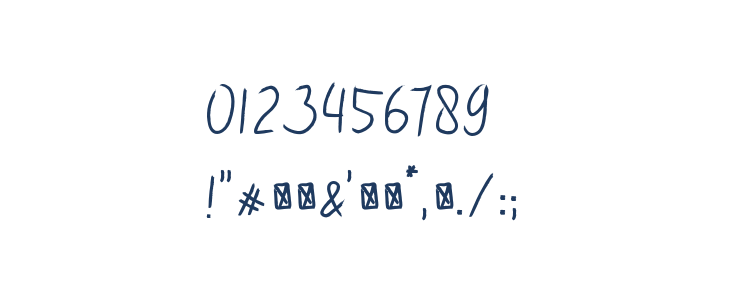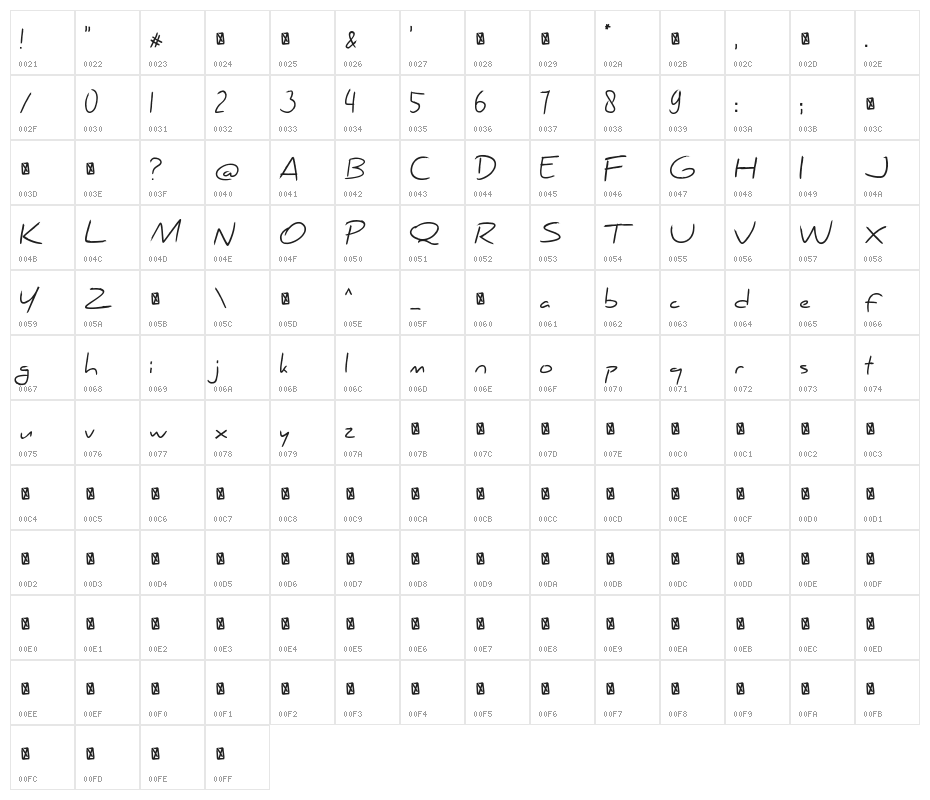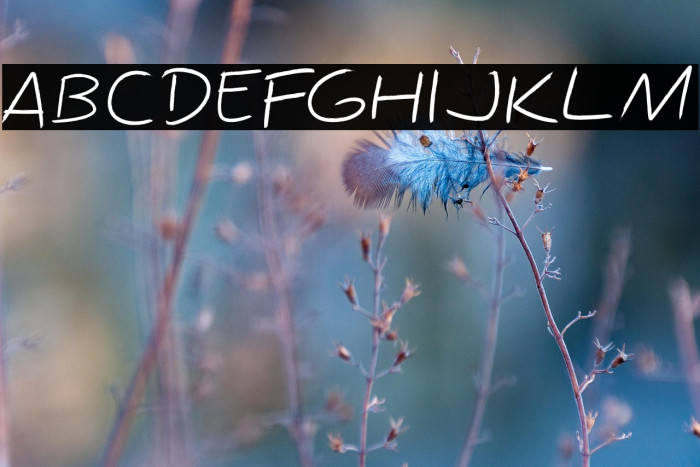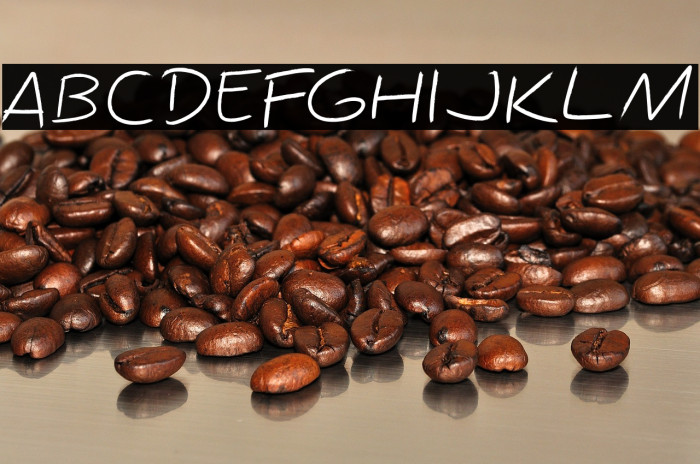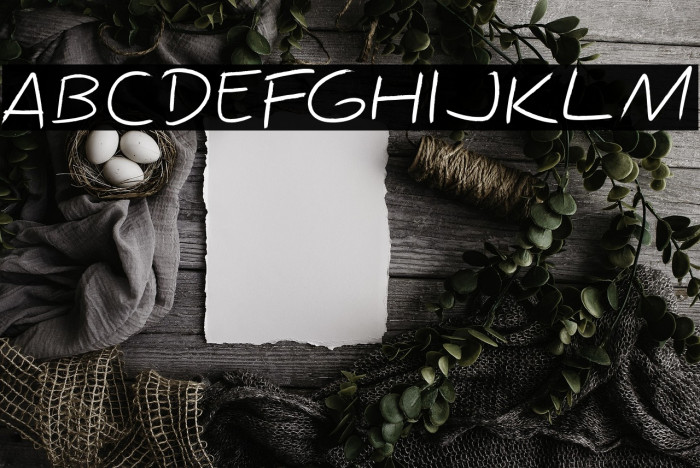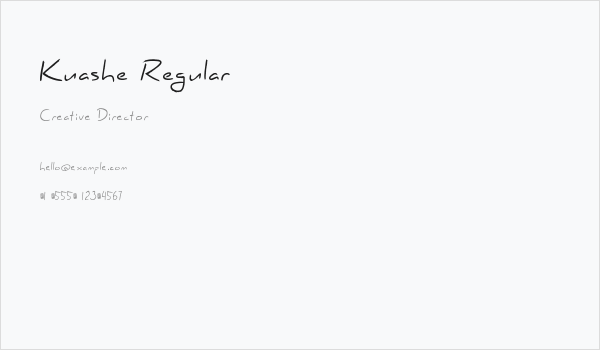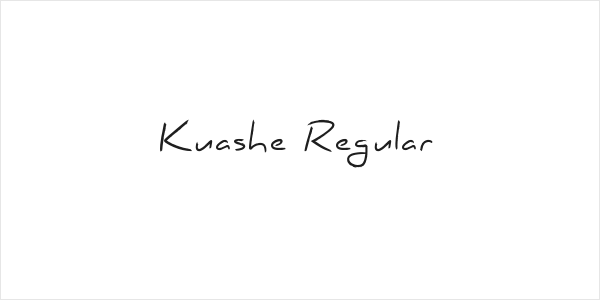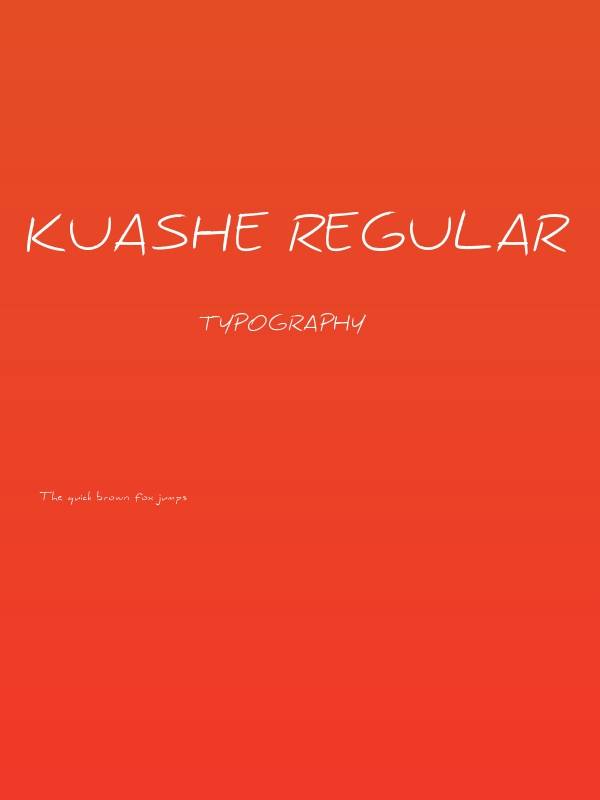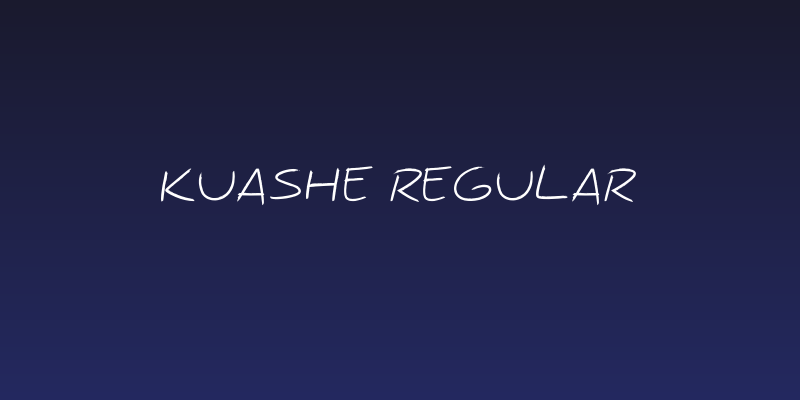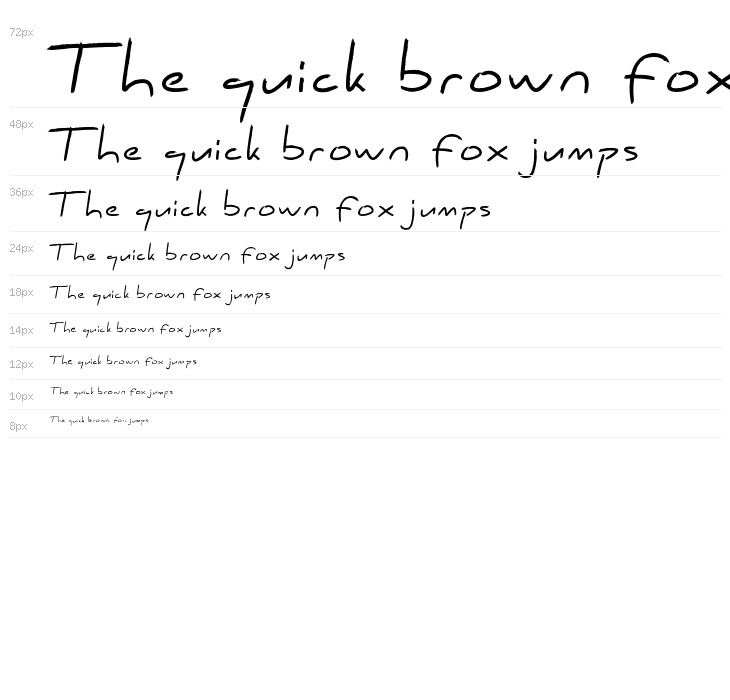
Kuashe Regular Font
Kuashe Regular Description
This font features a casual, handwritten style with a playful and informal appearance. The characters are slightly slanted, giving it a dynamic and lively feel. The strokes are smooth and consistent, with a medium thickness that provides good readability while maintaining a personal touch. The uppercase and lowercase letters complement each other well, and the numerals are clear and distinct. The special characters add to its versatility, making it suitable for various creative projects.
| Use Case | Logos, Invitations, Personal notes |
| Proposed Projects | Ideal for greeting cards, personal notes, informal invitations, and creative branding projects. |